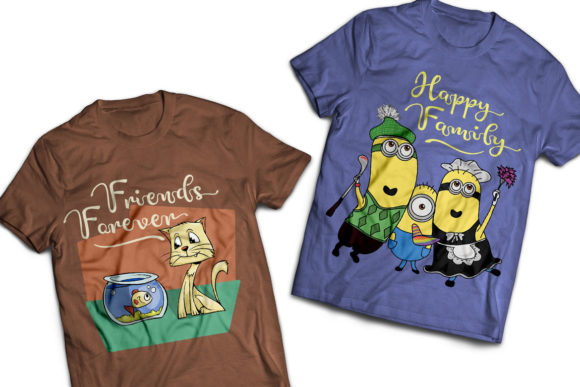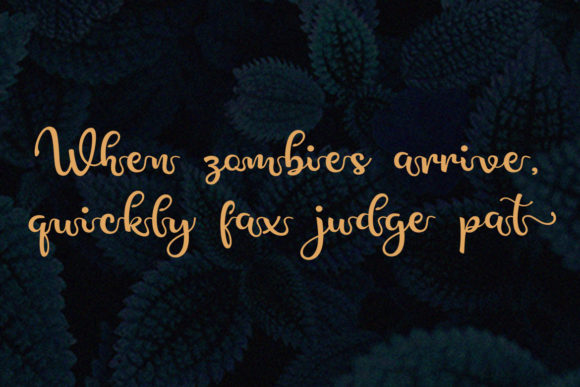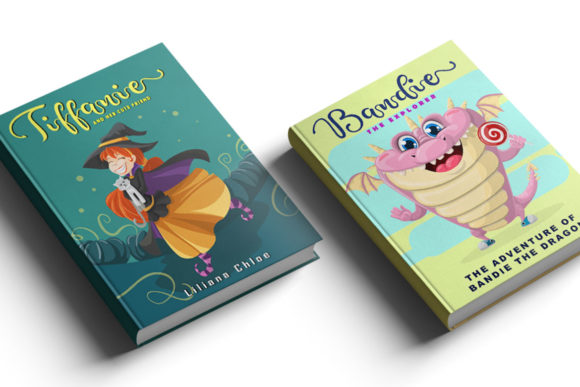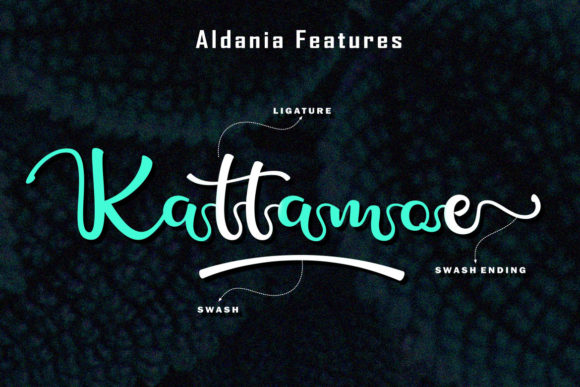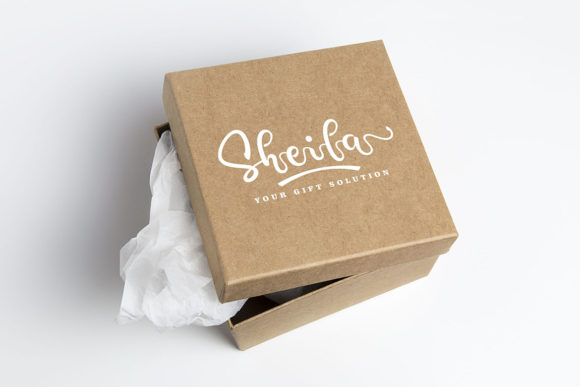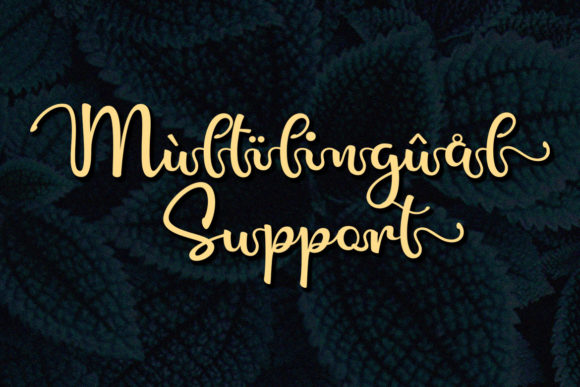
Aldania Font: The Perfect Choice for Creative Projects
Are you looking for a font that can add a touch of charm and whimsy to your creative projects? Look no further than Aldania Font! This beautiful and cute font is sure to capture your heart with its unique feel and amazing swashes. In this article, we’ll take a closer look at Aldania Font and explore its features, uses, and benefits.
What is Aldania Font?
Aldania Font is a modern script font that is designed to bring a touch of elegance and playfulness to your designs. Its unique feel and adorable charm make it perfect for a wide range of creative projects, from branding and advertising to crafting and DIY projects. The font features beautiful swashes and ligatures that add a touch of sophistication and style to your text.
Features of Aldania Font
Aldania Font has several features that make it stand out from other fonts. Some of its key features include:
- Unique feel: Aldania Font has a distinctive feel that sets it apart from other fonts. Its elegant and playful design makes it perfect for creative projects that need a touch of charm.
- Amazing swashes: The font features beautiful swashes that add a touch of sophistication and style to your text. Swashes are perfect for adding a decorative touch to your designs.
- Ligatures: Aldania Font also features ligatures, which are special characters that combine two or more letters into a single glyph. Ligatures add a touch of elegance and sophistication to your text.
- Multi-language support: Aldania Font supports multiple languages, making it perfect for designers and crafters who work with international clients.
Uses of Aldania Font
Aldania Font is a versatile font that can be used for a wide range of creative projects. Some of the most popular uses of the font include:
- Branding and advertising: Aldania Font is perfect for branding and advertising projects that need a touch of elegance and playfulness.
- Crafting and DIY projects: The font is also great for crafting and DIY projects, such as making invitations, cards, and other paper crafts.
- Graphic design: Aldania Font can be used for a wide range of graphic design projects, including brochures, flyers, and posters.
- Web design: The font can also be used for web design projects, including website headers, buttons, and other UI elements.
Benefits of Using Aldania Font
There are several benefits to using Aldania Font for your creative projects. Some of the most significant benefits include:
- Unique and eye-catching designs: Aldania Font allows you to create unique and eye-catching designs that stand out from the crowd.
- Elegant and playful feel: The font adds an elegant and playful feel to your designs, making them perfect for creative projects that need a touch of charm.
- Easy to read: Aldania Font is easy to read, even at small sizes, making it perfect for body text and other applications where readability is important.
- High-quality design: The font is designed to high-quality standards, ensuring that your designs look professional and polished.
Tips for Using Aldania Font
Here are some tips for using Aldania Font effectively in your creative projects:
- Use it sparingly: Aldania Font is a decorative font, so it’s best to use it sparingly to add a touch of elegance and playfulness to your designs.
- Pair it with a sans-serif font: Pairing Aldania Font with a sans-serif font can create a nice contrast and add visual interest to your designs.
- Experiment with swashes: The swashes in Aldania Font are a great way to add a decorative touch to your designs. Experiment with different swashes to find the one that works best for your project.
Aldania Font is a beautiful and cute font that is perfect for creative projects that need a touch of charm and whimsy. Its unique feel, amazing swashes, and elegant design make it a great choice for designers and crafters who want to add a touch of elegance and playfulness to their designs. With its versatility, ease of use, and high-quality design, Aldania Font is a great addition to any designer’s or crafter’s toolkit.